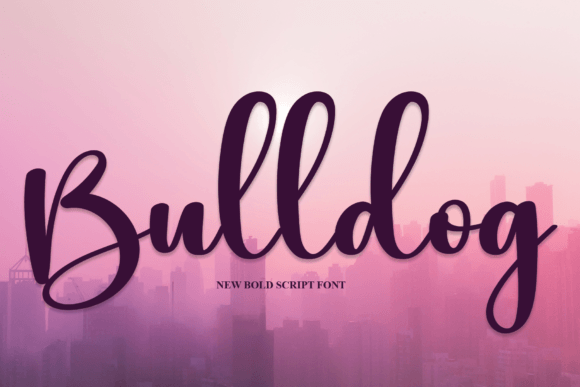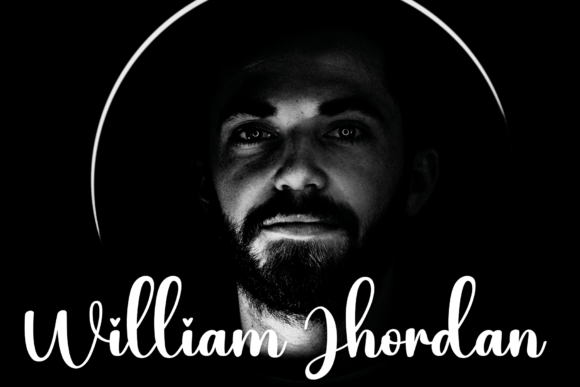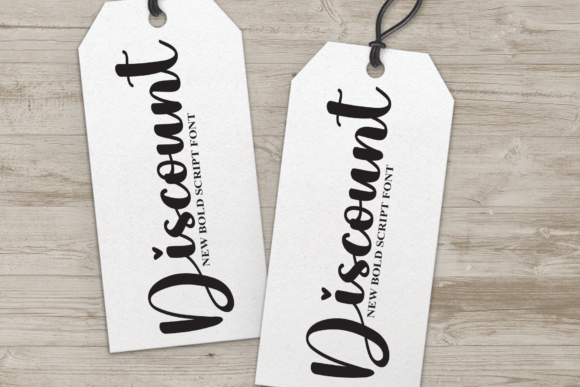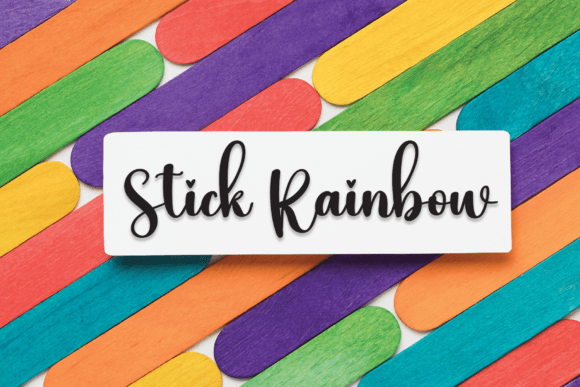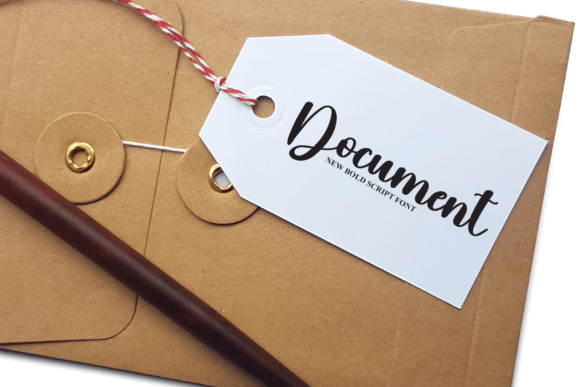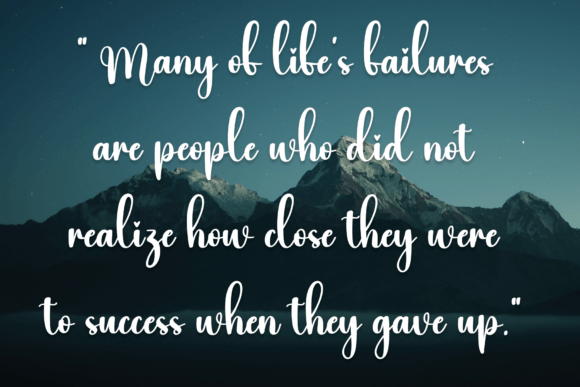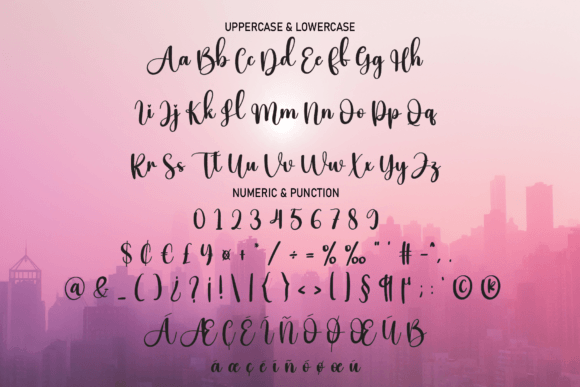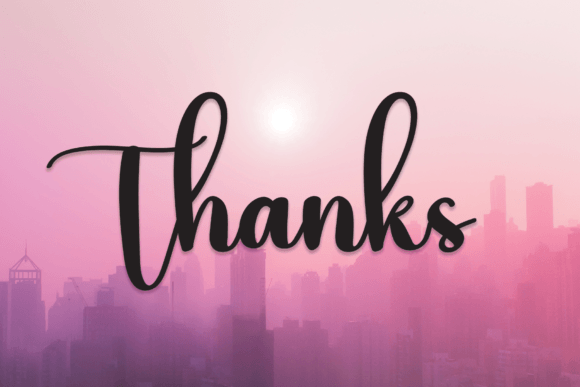
Bulldog Font
About Bulldog Font
The most recent iteration of this font introduces letters that are impeccably tailored for a wide spectrum of creative applications. From commanding wall displays to the delicate elegance of wedding invitations, from making a memorable statement in social media post logos to capturing attention in advertisements, this font’s latest style stands as a versatile and indispensable tool for designers.
In the realm of product packaging and design, these letters serve as the embodiment of modern elegance, lending a personalized touch to labels, product designs, and packaging aesthetics. Photographers find a valuable ally in this font for watermarking, as it seamlessly integrates a handwritten taste into the visual identity of images.
The font’s adaptability extends gracefully to invitations and stationery, where each letter contributes to an atmosphere of warmth and individuality. Whether crafting a personalized label, designing an eye-catching social media post, or refining the details of product packaging, this font brings forth a distinct handwritten charm that enhances the overall visual appeal of any project.
Imagine these letters gracing a wedding invitation, where their graceful strokes add a touch of romance and sophistication. Visualize them in a social media post logo, capturing the essence of uniqueness and creativity. Envision the font seamlessly integrated into product packaging, enhancing the consumer’s experience with a personalized and tasteful touch.
In the design landscape, this font’s latest style is more than a typeface; it’s a design element that transforms the ordinary into the extraordinary. Its contemporary aesthetic ensures relevance across diverse projects, while its handwritten charm adds a layer of authenticity and creativity.
Whether you’re a graphic designer working on advertisements, a bride-to-be envisioning the perfect wedding invitation, or a business owner aiming for a distinctive product design, the latest style of this font opens the door to a world of creative possibilities. With each letter, it breathes life into your projects, infusing them with a handwritten taste that leaves a lasting impression.